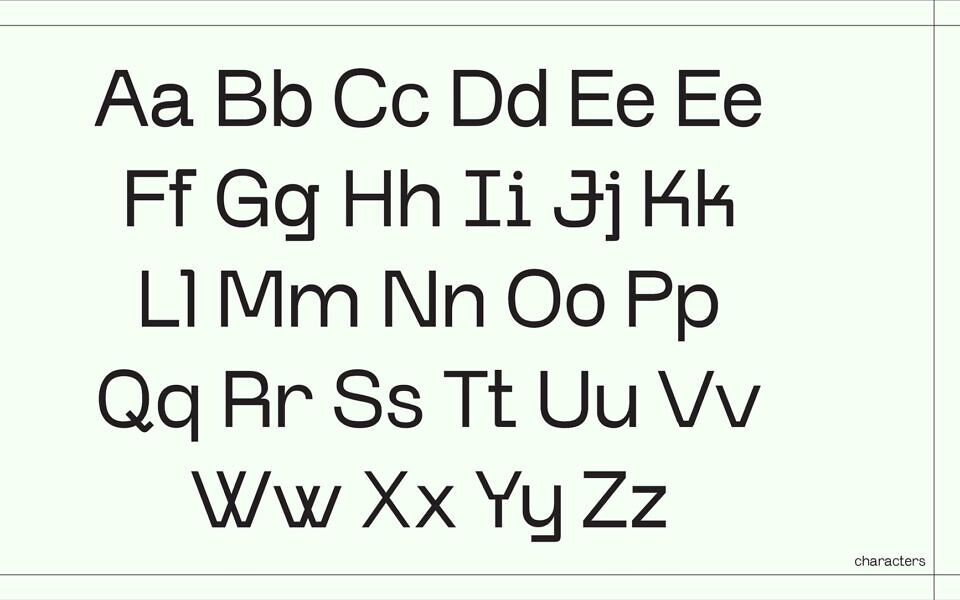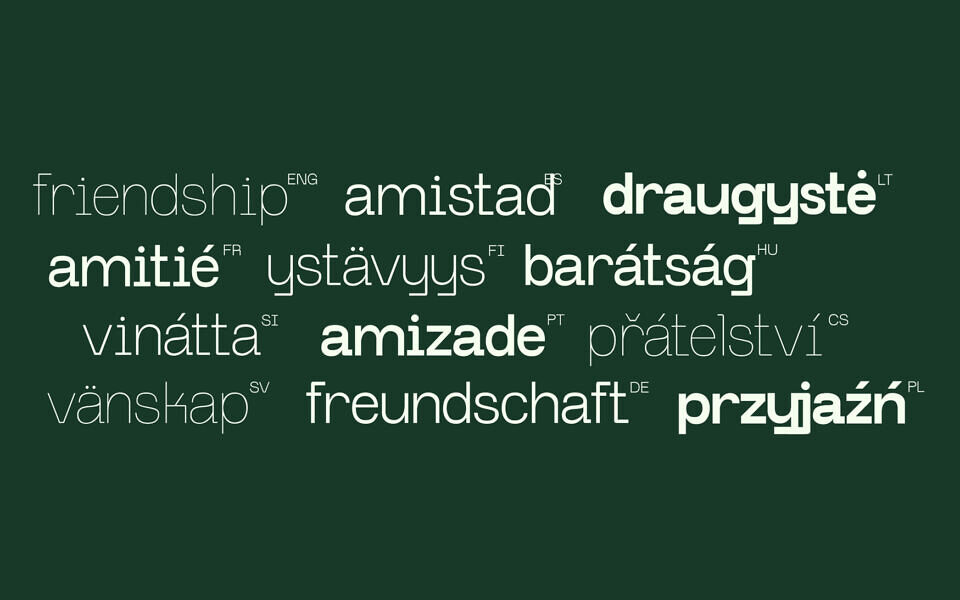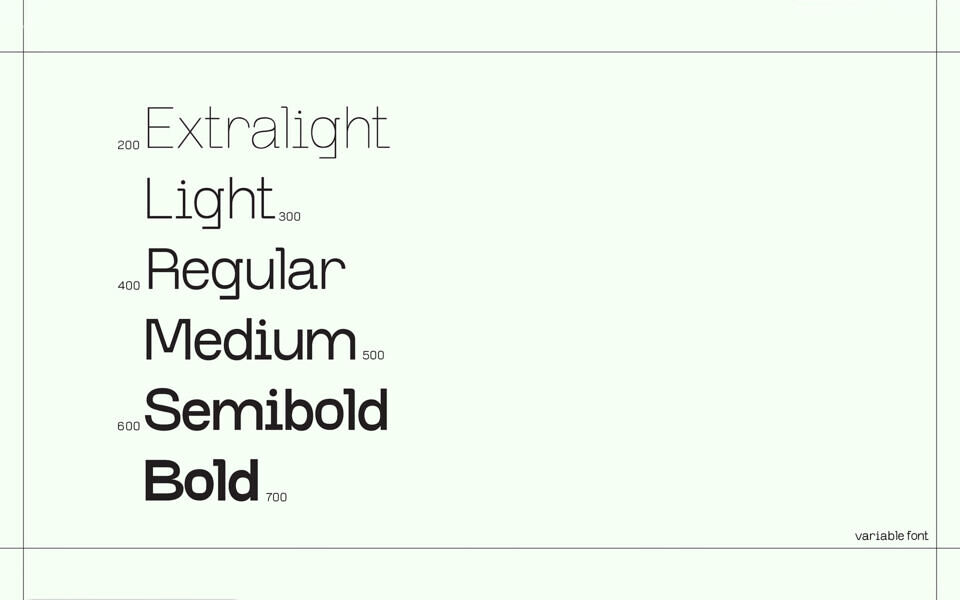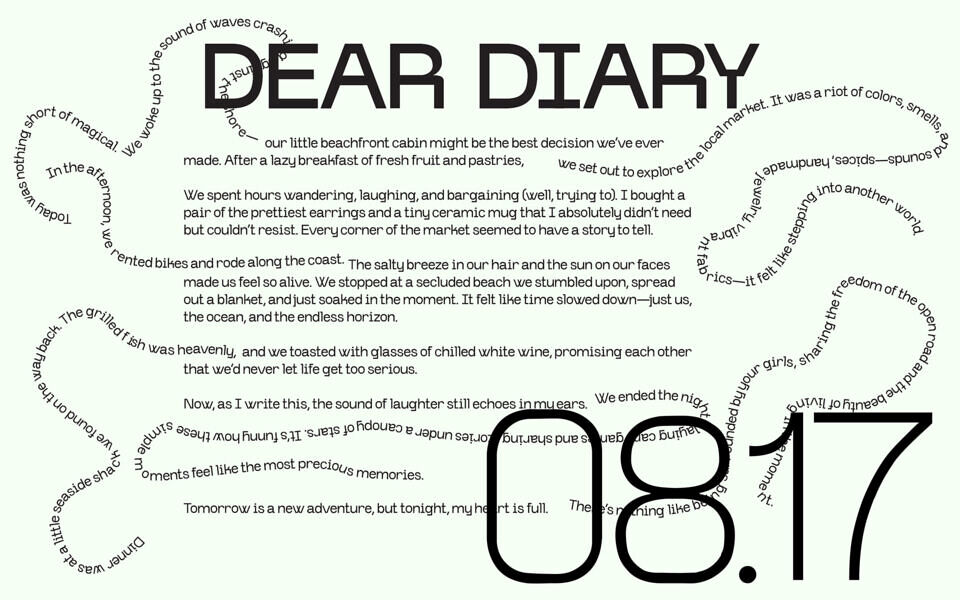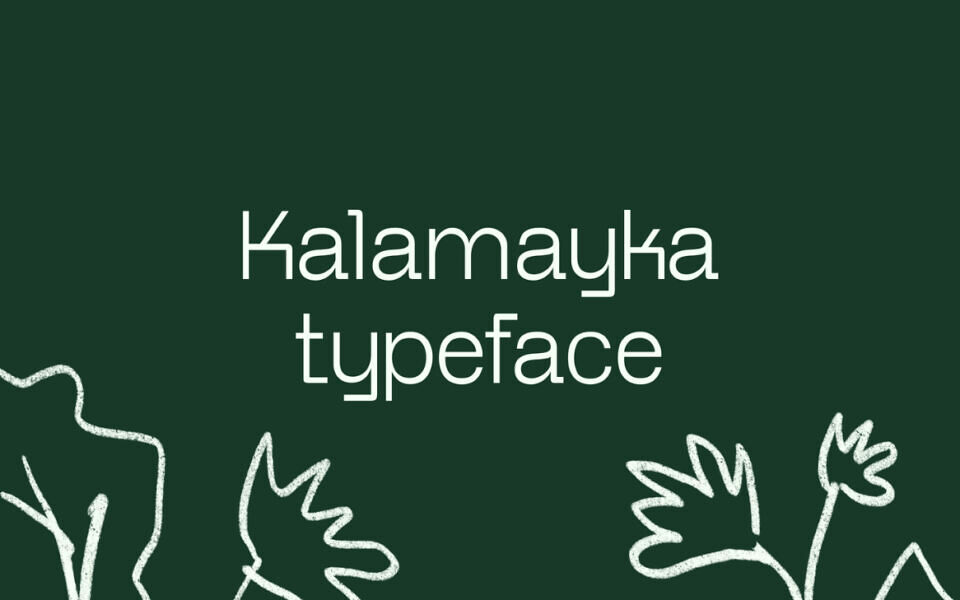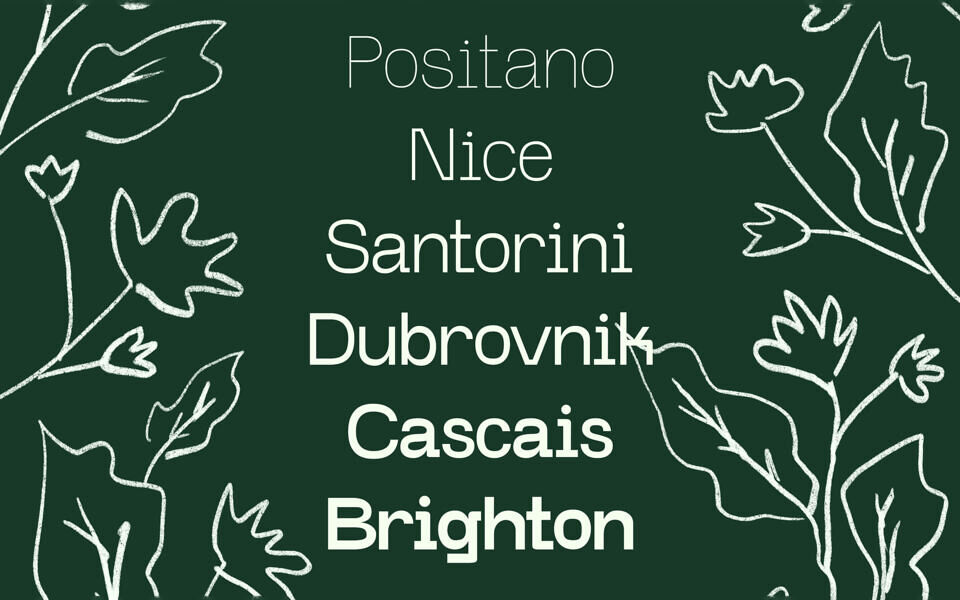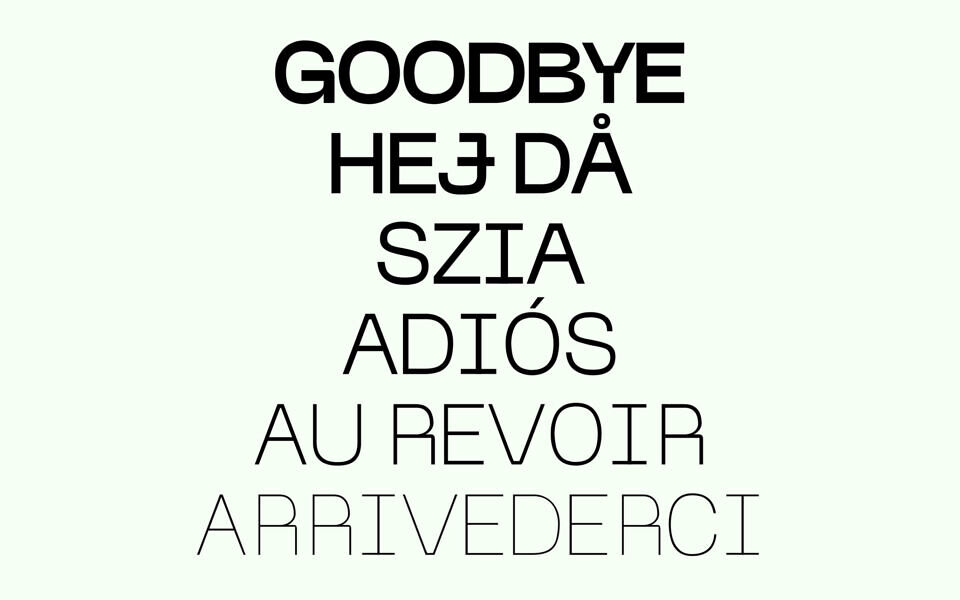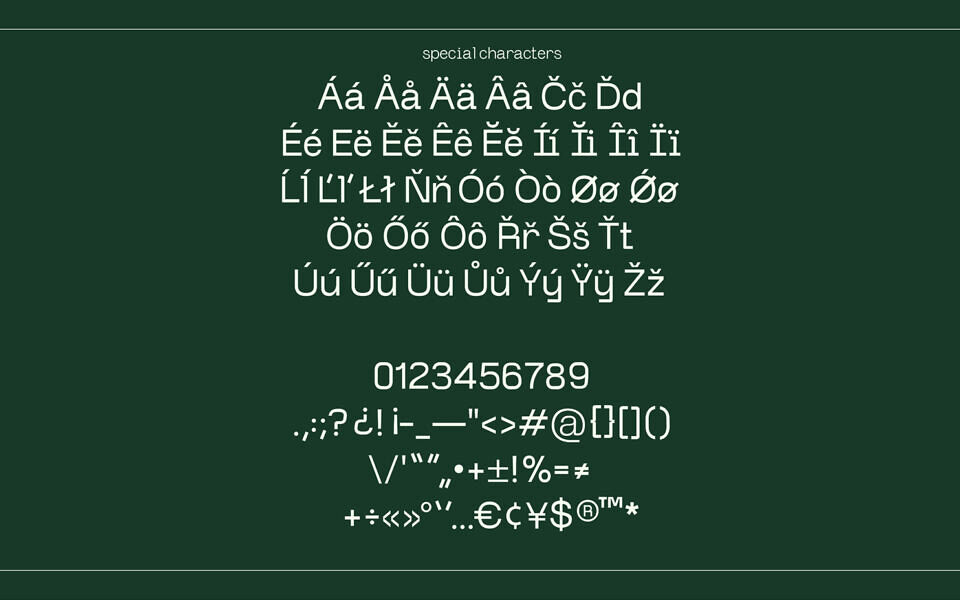
Kalamayka Font
Imagine a dusty road, a bustling city center, or a sunset over a tranquil beach—essential elements of the perfect girls’ trip. It’s all about the feeling of freedom, the carefree spirit of youth, and the playful chaos that seems to follow wherever the adventure leads. These moments, filled with laughter, spontaneity, and a hint of mischief, are what make every journey unforgettable.
Whether it’s getting lost in the vibrant streets of a foreign city or chasing the horizon on an open road, the Kalamajka typeface embodies this energy. It’s the visual equivalent of packing your bags, leaving your worries behind, and letting the unexpected become part of the story. Because life’s best adventures always come with a little Kalamajka.